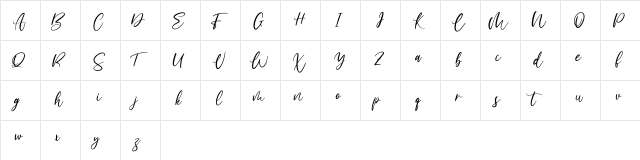
Acrosmyth Free Regular
| Foundry | Maulana Creative |
| Designer | Maulana Creative |
Design Context for Acrosmyth Free Typeface
Acrosmyth Free is a composed and adaptable typeface that performs quietly and consistently across a wide range of design contexts.